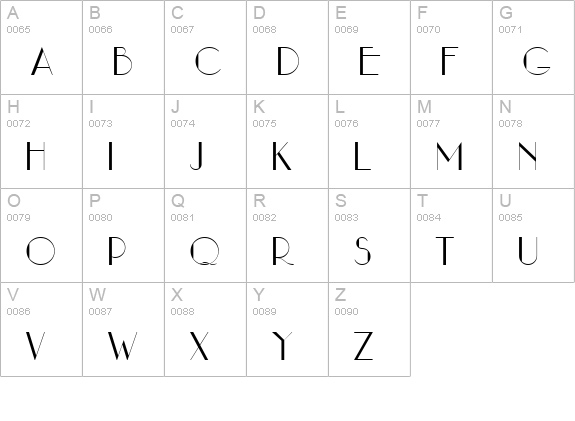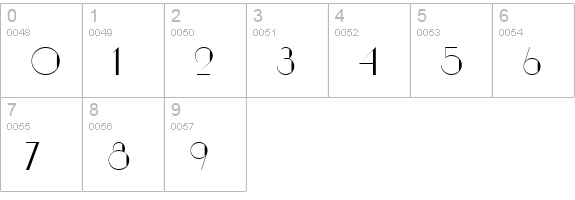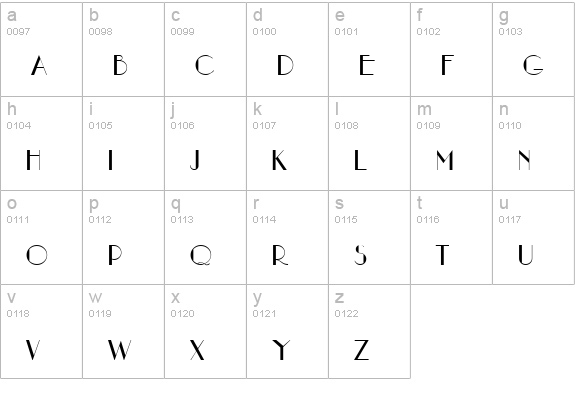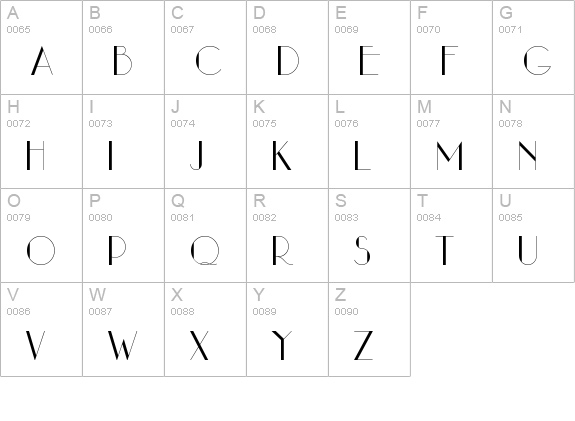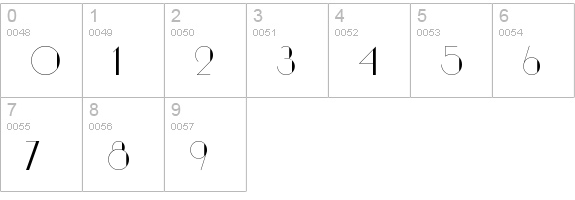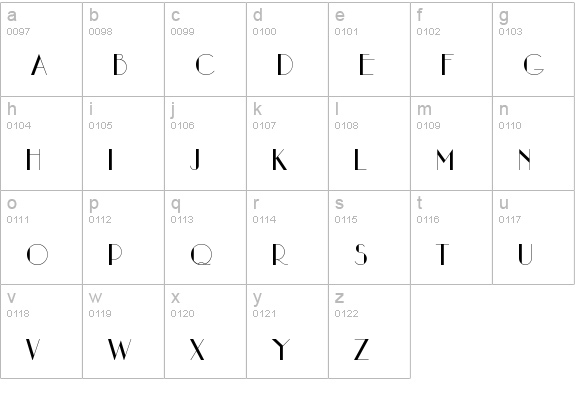
NouveauAsta Font Details
NouveauAsta font is a modern and stylish typeface that exudes elegance and sophistication. Its sleek lines and contemporary design make it perfect for a wide range of projects, from branding to editorial design. The clean and geometric shapes of NouveauAsta font give it a timeless appeal, making it a versatile choice for both print and digital applications. What sets NouveauAsta font apart is not just its striking appearance, but also the fact that it is available for free download at FontsMarket.com. This means that you can easily access this high-quality font without any cost, making it an excellent option for designers on a budget or anyone looking to add a touch of class to their projects without breaking the bank. Whether you're working on a logo, website, poster, or any other design project, NouveauAsta font is sure to make a statement. Its combination of modern aesthetics and accessibility make it a valuable addition to any designer's toolkit. Download NouveauAsta font today and elevate your designs with this stunning typeface.